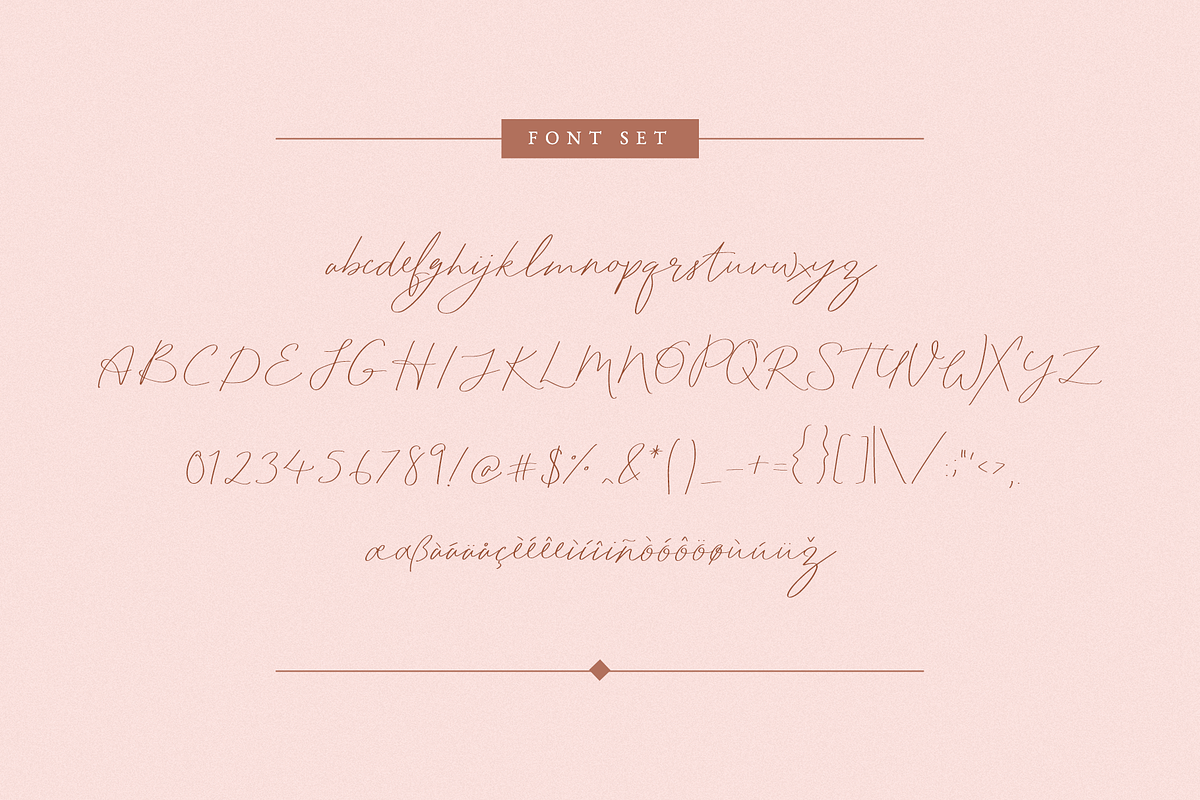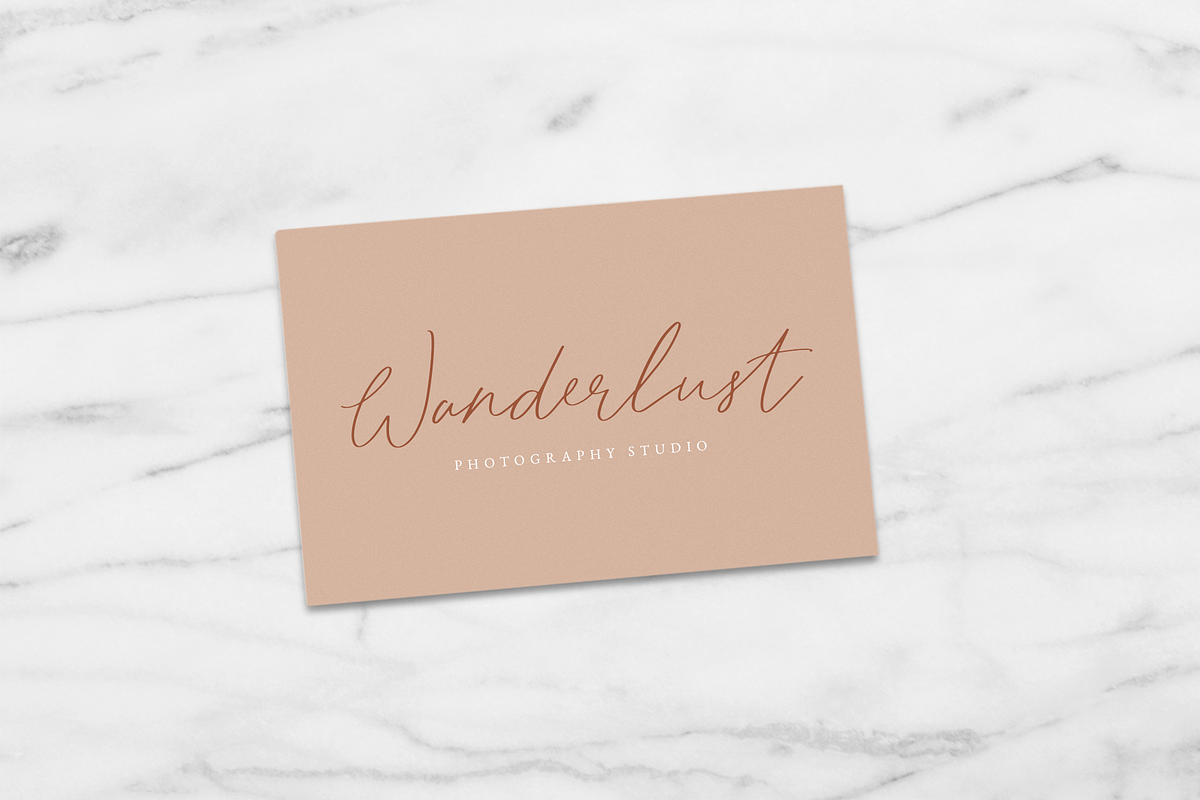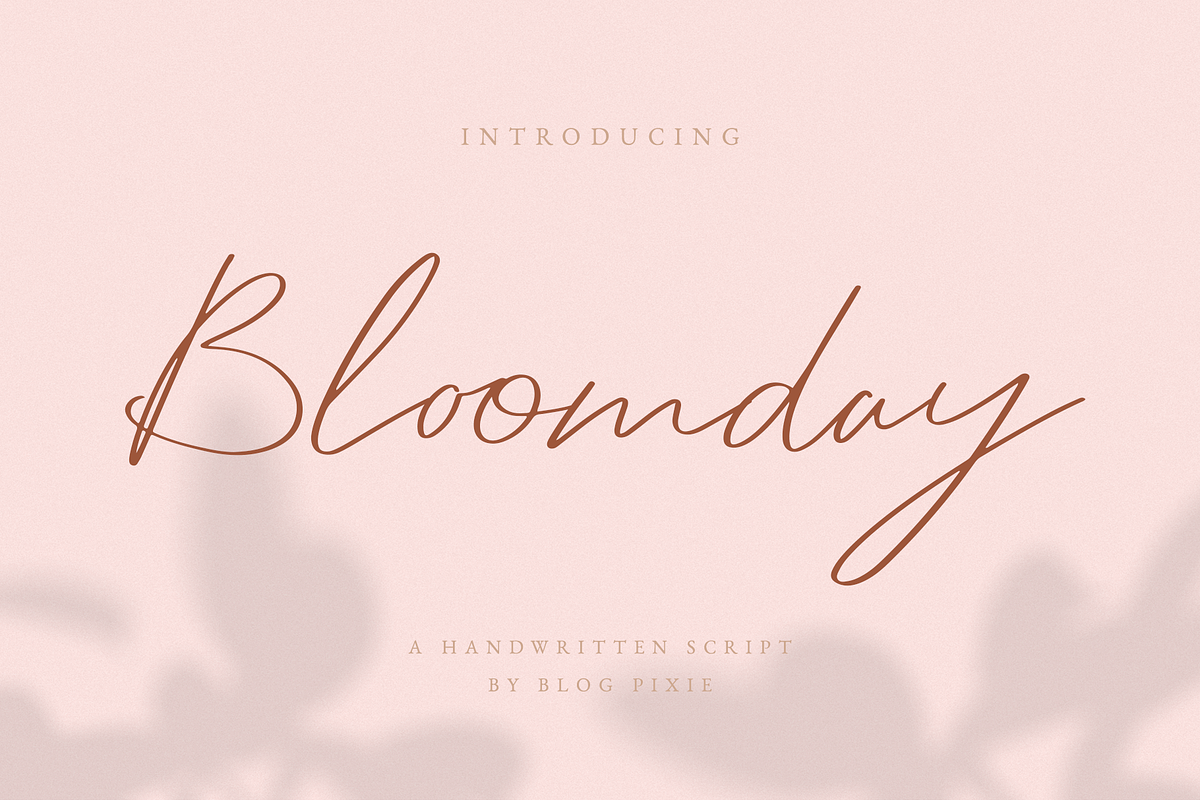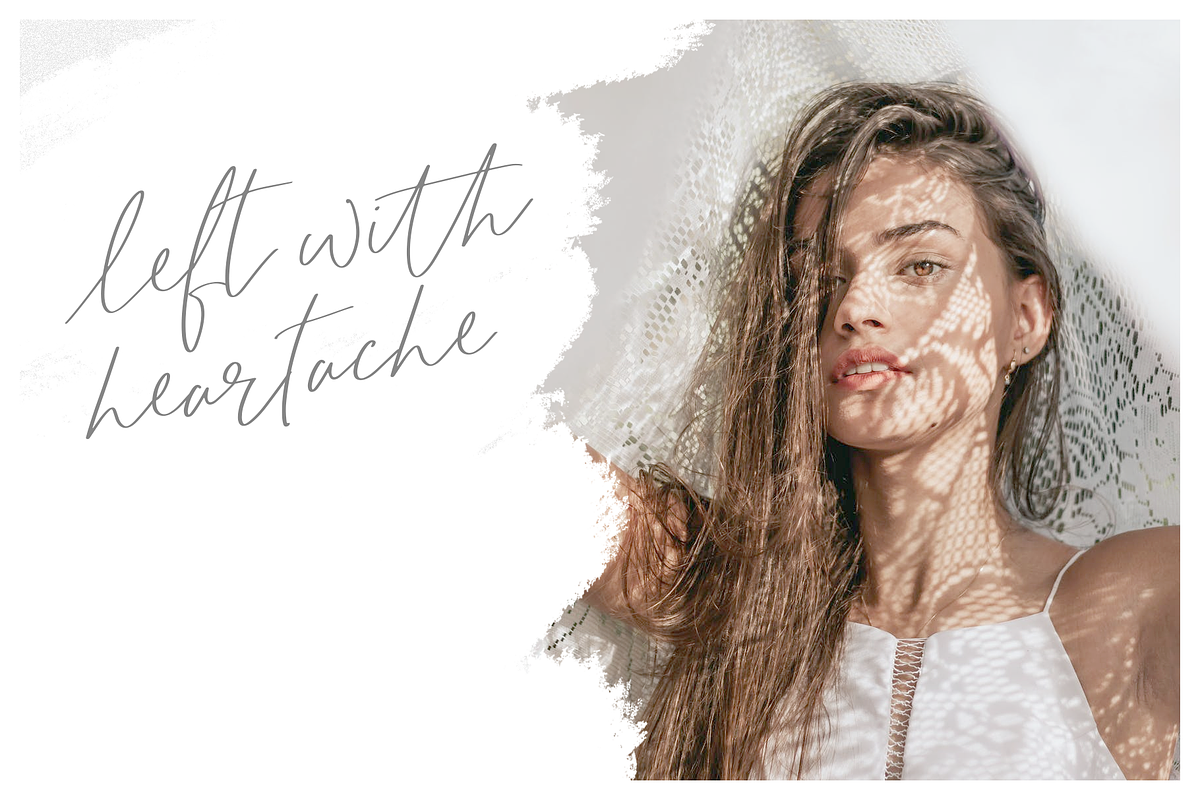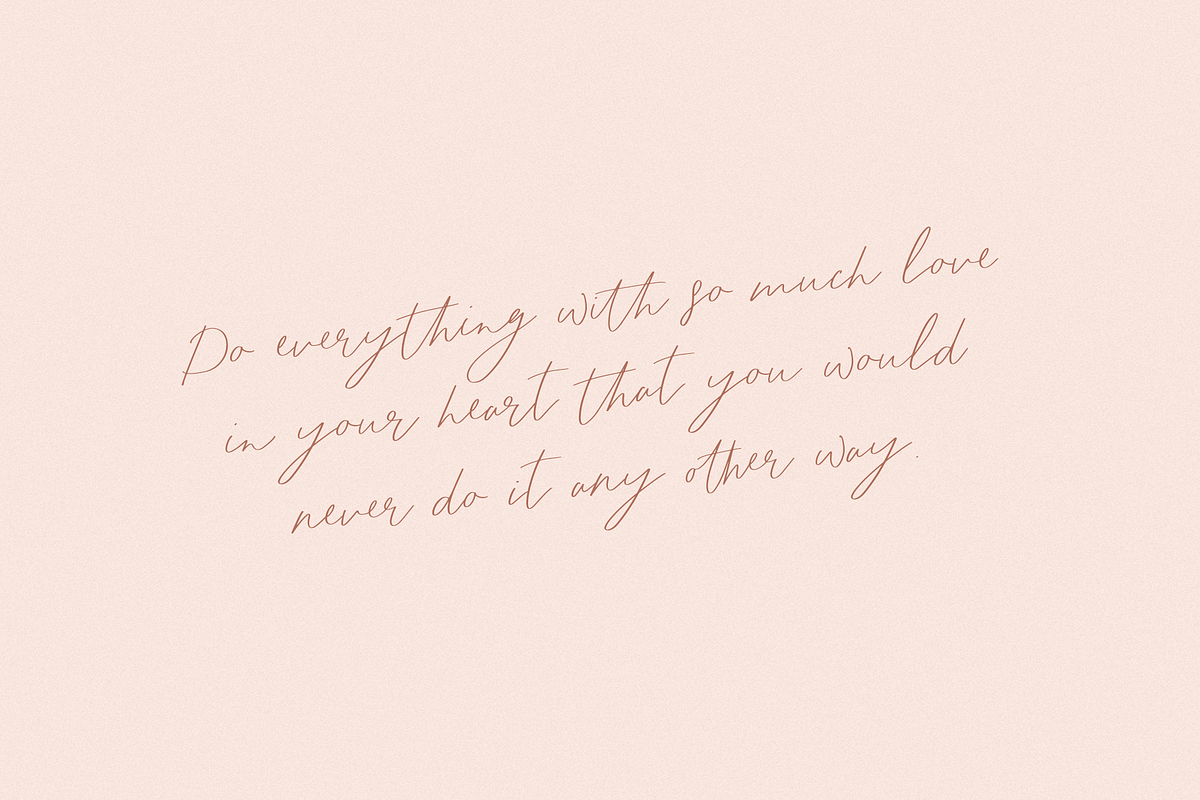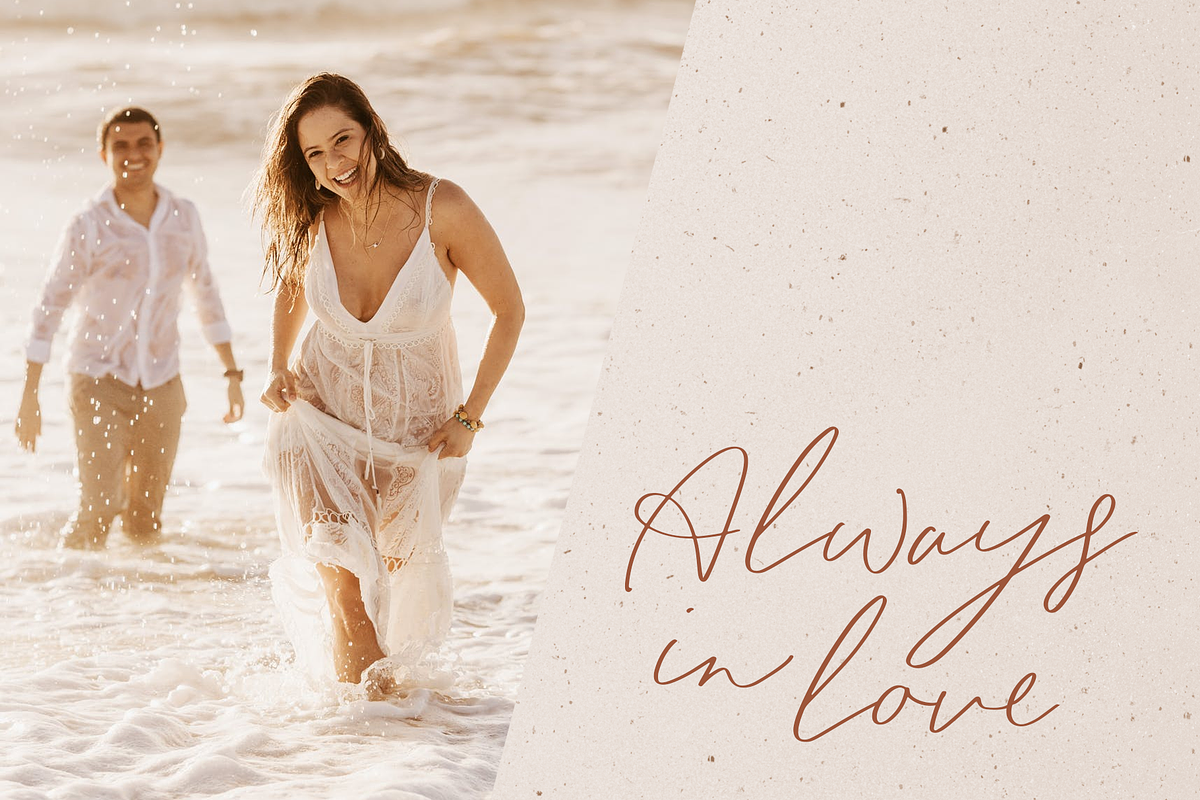
Bloomday Script Font
Delicate and thinly lined, Bloomday is a modern font in a handwritten calligraphy style.
Use Bloomday script for quotes, invitations, stationery, print design, logos, magazine, eBooks and logos.
Why Bloomday Script Font is worth a look
Bloomday Script Font by Design Pixie fits naturally into Branding, posters, packaging, typography.